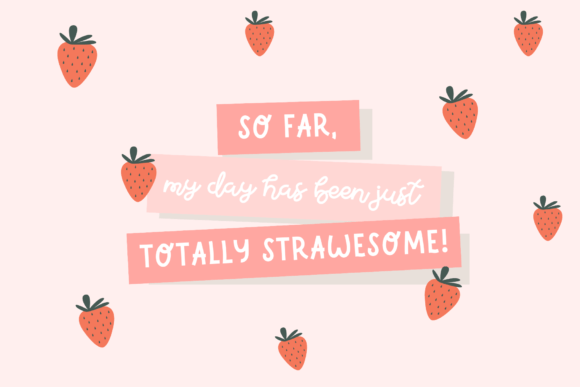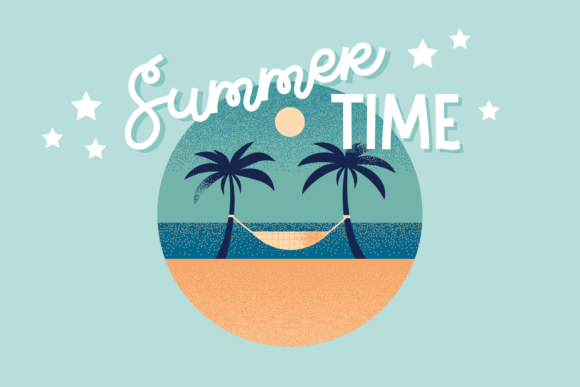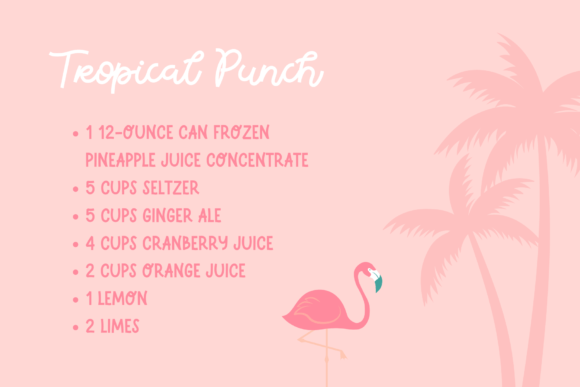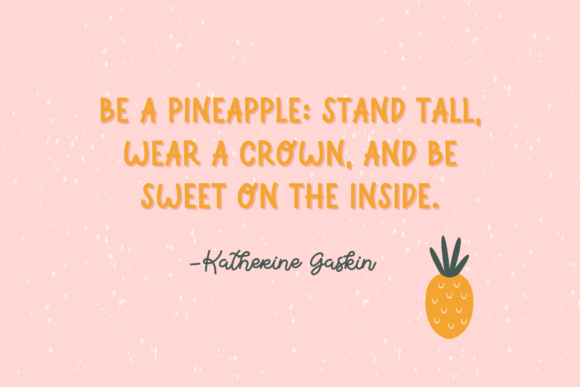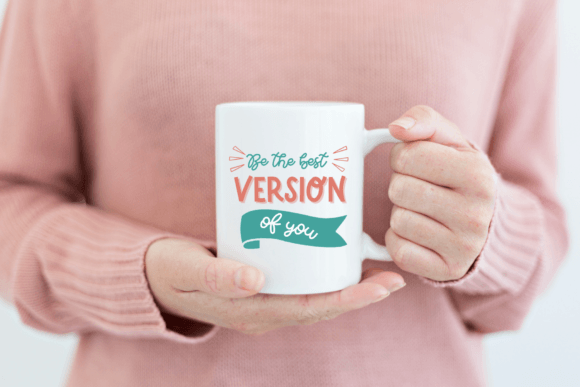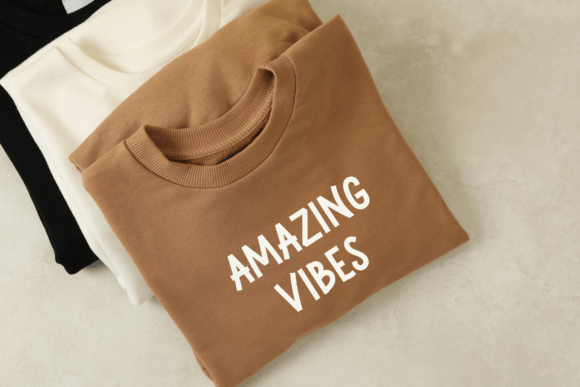
Add a Touch of Whimsy to Your Designs
As a designer, there’s nothing quite like the thrill of creating something new and exciting. You’re brainstorming ideas, experimenting with colors, and bringing your vision to life. And then, it happens – you need a font that perfectly captures the essence of your project. That’s where the Beach Lover Tropical Drinks Duo Font comes in. This adorable font duo is designed to add a playful touch to your designs, making it perfect for greeting cards, invitations, social media graphics, and branding materials.
The Beach Lover Tropical Drinks Duo Font is more than just a cute font – it’s a valuable asset for any designer looking to bring a touch of whimsy and charm to their work. With its playful curves and delightful details, this font is sure to make your designs stand out from the crowd. Whether you’re working on a project that screams summer vibes or something a little more laid-back, this font duo is the perfect addition to your design toolkit.
Beach Lover Tropical Drinks Duo Font Key Features
- Unique Characteristics: A vibrant and playful font duo designed specifically for tropical drink and beach-themed designs, featuring a fun and laid-back vibe.
- Font Styles: Comes in two font styles, a bold and a regular, to add depth and variety to your designs.
Designer Review: Beach Lover Tropical Drinks Duo Font
Overall, I think the Beach Lover Tropical Drinks Duo Font is a great choice for anyone looking for a fun, beachy vibe in their typography. Here are some of the things that work well:
- ✨ The font is playful and perfect for a summer-themed design project.
- ✨ The tropical drinks duo includes two fonts that can be used separately or together, giving you plenty of creative options.
- ✨ The font is highly customizable, allowing you to adjust the size, color, and spacing to fit your design needs.
- ⚠️ The font may not be as versatile as some other fonts, making it less suitable for more formal or professional designs.
- ⚠️ Some of the characters may not be as legible at smaller font sizes, which could be a problem if you’re working with limited space.
Overall, I think the Beach Lover Tropical Drinks Duo Font is a great choice for anyone looking for a fun, beachy vibe in their typography. It’s perfect for summer-themed projects, social media graphics, and other casual designs. Just be mindful of the limitations and use it in contexts where it will shine.
Tips: Use the Beach Lover Tropical Drinks Duo Font to create eye-catching headlines and titles for your beach-themed designs.
Tips: Use the Beach Lover Tropical Drinks Duo Font to create custom watermarks, labels, and other design elements for your tropical-themed designs.
Tips: Use the Beach Lover Tropical Drinks Duo Font to create engaging titles, headings, and body text for your beach-themed presentations and documents.
The Beach Lover Tropical Drinks Duo Font is perfect for:
– Beach-themed designs and branding
– Tropical vacation promotions and advertisements
– Summer-themed party invitations and decorations
– Coastal-inspired product labels and packaging